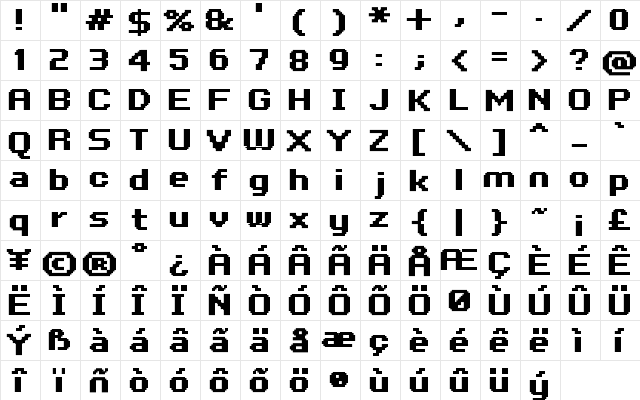
FFF Business Bold Regular Font Preview
FFF Business Bold Regular
Design Context for FFF Business Bold Typeface
FFF Business Bold is a composed and adaptable typeface that performs quietly and consistently across a wide range of design contexts. The heavy weight commands attention and anchors typographic hierarchies.